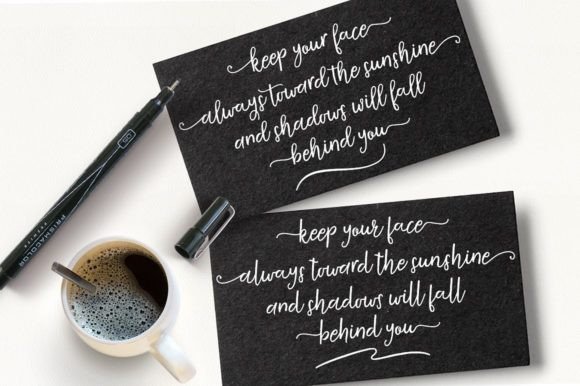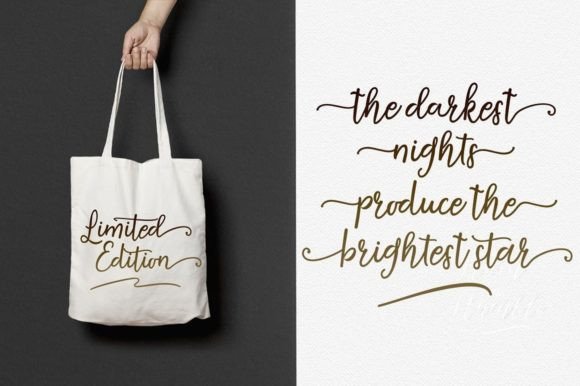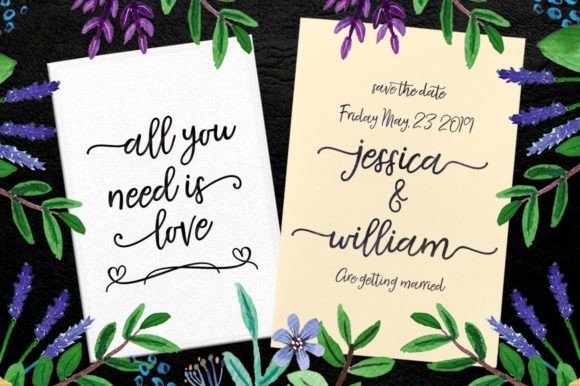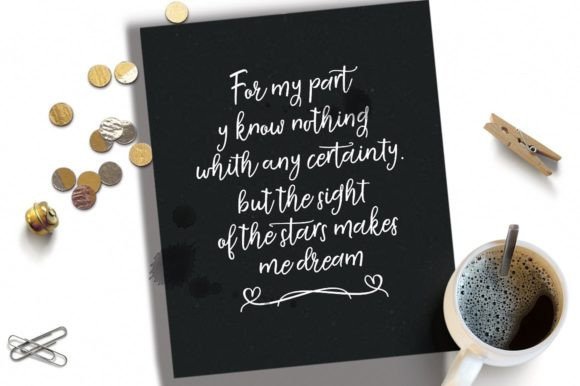
Discover the Elegance of Agustine Font: A Modern Calligraphic Script Font
Are you looking for a font that adds a touch of elegance and sophistication to your designs? Look no further than Agustine Font, a lovely modern calligraphic script font that is sure to impress. With its dynamic and pretty swashes, Agustine is perfect for a variety of purposes, from titles and signatures to logos, wedding invitations, and more.
What is Agustine Font?
Agustine Font is a modern calligraphic script font that is designed to bring a touch of elegance and sophistication to your designs. It features beautiful, flowing lines and dynamic swashes that add a touch of whimsy and flair to any project. Whether you’re a designer, crafter, or DIY enthusiast, Agustine Font is a versatile and stylish choice that is sure to impress.
Key Features of Agustine Font
- Dynamic Swashes: Agustine Font features beautiful, dynamic swashes that add a touch of elegance and sophistication to any project.
- Modern Calligraphic Style: Agustine Font is a modern take on traditional calligraphic script fonts, with flowing lines and a stylish, contemporary look.
- Versatile: Agustine Font can be used for a variety of purposes, from titles and signatures to logos, wedding invitations, and more.
- Elegant and Sophisticated: Agustine Font is designed to add a touch of elegance and sophistication to any project, making it perfect for designs that require a high level of style and refinement.
Uses for Agustine Font
Agustine Font is a versatile font that can be used for a variety of purposes, including:
- Titles and Signatures: Agustine Font is perfect for adding a touch of elegance and sophistication to titles and signatures.
- Logos: Agustine Font can be used to create beautiful, stylish logos that are sure to impress.
- Wedding Invitations: Agustine Font is a popular choice for wedding invitations, adding a touch of romance and elegance to any design.
- Letterhead and Stationery: Agustine Font can be used to create stylish and sophisticated letterhead and stationery.
- Signage and Labels: Agustine Font can be used to create eye-catching signage and labels that are sure to stand out.
- Newsletters and Posters: Agustine Font can be used to add a touch of elegance and sophistication to newsletters and posters.
- Badges and More: Agustine Font can be used to create beautiful, stylish badges and other designs.
Why Choose Agustine Font?
There are many reasons to choose Agustine Font for your next design project. Here are just a few:
- Unique and Stylish: Agustine Font is a unique and stylish font that is sure to add a touch of elegance and sophistication to any project.
- Versatile: Agustine Font can be used for a variety of purposes, making it a great choice for designers and crafters who need a font that can be used in multiple ways.
- Elegant and Sophisticated: Agustine Font is designed to add a touch of elegance and sophistication to any project, making it perfect for designs that require a high level of style and refinement.
Agustine Font is a lovely modern calligraphic script font that is sure to add a touch of elegance and sophistication to any design project. With its dynamic swashes and stylish, contemporary look, Agustine Font is perfect for a variety of purposes, from titles and signatures to logos, wedding invitations, and more. Whether you’re a designer, crafter, or DIY enthusiast, Agustine Font is a versatile and stylish choice that is sure to impress.